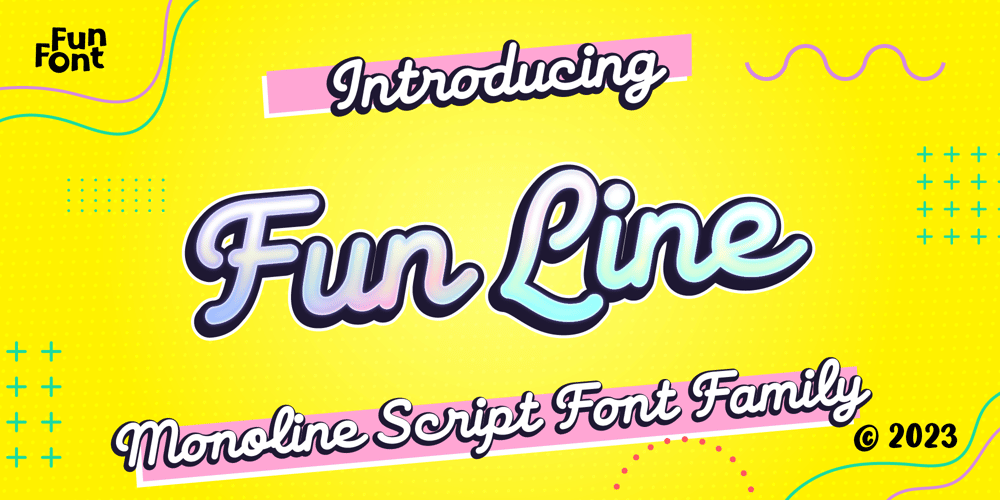
Fun Line Font Family was designed by Nur Syamsi, Bustanul Arifin and published by FunFont. Fun Line contains 3 styles and family package options. FunLine is a modern script font, crafted with monoline strokes characterized by curved lines and seamless connections, presenting a classic font with a modern touch.The font family comprises three weights; Light, Regular, and Bold. Suitable for your design needs.The Arabic version will be released, accompanied by the addition of Arabic, Urdu, Pegon, Persian, and Kurdish languages.